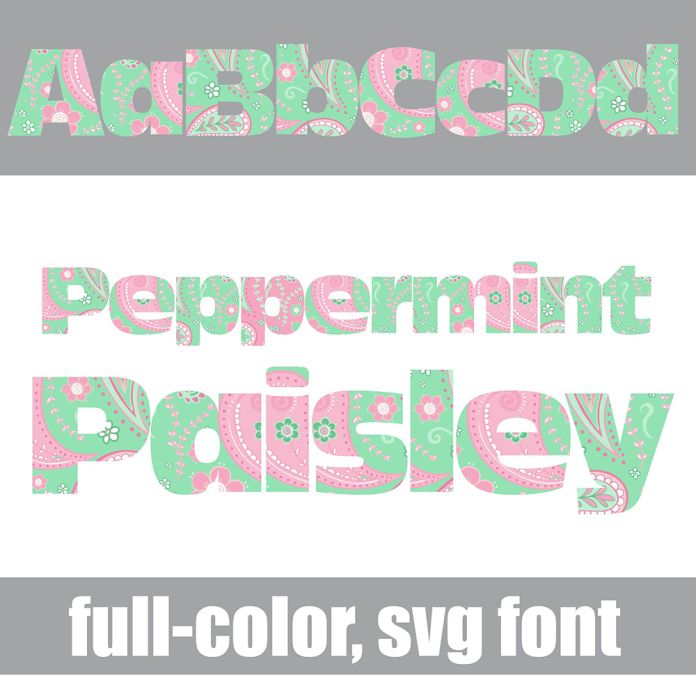
This full-color font features a pretty paisley in peppermint colors. This full-color font features a sans serif font in a Christmas color palette. Use the brackets to access the berry/evergreen glyphs. There is an alt case with an additional color of each letter. This font works best for titles, displays, posters and more. Please note color fonts will show as black in non compatible programs. This font type is compatible with Silhouette Studio.